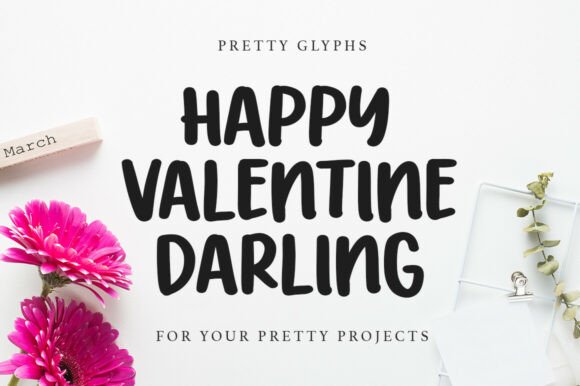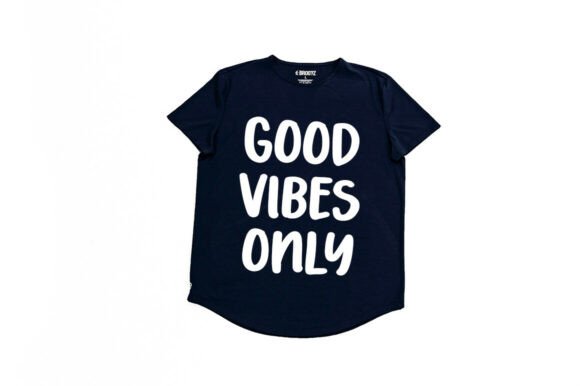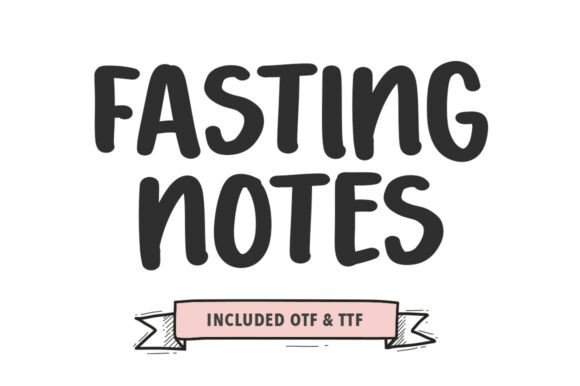
Fasting Notes Font: A Bold and Sturdy Handwriting Font for Authentic Designs
In the world of typography, fonts play a crucial role in conveying the tone and personality of a brand or design. For designers and crafters looking for a unique and authentic look, Fasting Notes Font is an excellent choice. This bold and sturdy handwriting font is designed to capture the essence of neat, marker-drawn lettering, making it perfect for a variety of applications.
Characteristics of Fasting Notes Font
Fasting Notes Font boasts thick, uniform strokes and a very consistent baseline, providing a sense of stability and clarity while maintaining a hand-crafted feel. The letterforms are characterized by tight spacing and slightly irregular, organic curves that suggest a personal, journal-like recording. This distinctive combination of features sets Fasting Notes apart from other fonts and makes it an excellent choice for designers seeking a unique look.
Fasting Notes Font is a versatile option for various design applications. Its bold and sturdy nature makes it perfect for:
• Instructional Headers: Use Fasting Notes Font to create clear and concise headers for instructional materials, such as workout routines, recipes, or DIY tutorials.
• Organic Food Labeling: The font’s natural, hand-crafted feel makes it an excellent choice for labeling organic food products, adding a touch of authenticity to your brand.
• Fitness Branding: Fasting Notes Font is ideal for fitness-related designs, such as gym logos, workout plans, or motivational quotes, conveying a sense of strength and determination.
• Handmade and Artisanal Projects: The font’s unique, hand-crafted look makes it perfect for projects that require a personal touch, such as craft tutorials, handmade product labels, or artisanal branding.
Fasting Notes Font offers several benefits for designers and crafters:
• Unique and Authentic Look: The font’s distinctive features ensure that your designs stand out from the crowd and convey a sense of authenticity.
• Easy to Read: The bold and sturdy nature of Fasting Notes Font makes it easy to read, even at smaller sizes.
• Flexible and Versatile: The font’s versatility allows you to use it across various design applications, from digital to print.
• Time-Saving: With Fasting Notes Font, you can create professional-looking designs quickly and efficiently, saving you time and effort.
Tips for Using Fasting Notes Font
To get the most out of Fasting Notes Font, consider the following tips:
• Pair with Complementary Fonts: Combine Fasting Notes Font with complementary fonts to create visual interest and add depth to your designs.
• Experiment with Colors: Try pairing the font with different colors to create a unique and eye-catching look.
• Use for Headlines and Titles: Fasting Notes Font is perfect for headlines and titles, making it an excellent choice for adding emphasis to your designs.
Fasting Notes Font is a bold and sturdy handwriting font that offers a unique and authentic look for designers and crafters. Its versatility, ease of use, and distinctive features make it an excellent choice for various design applications. Whether you’re creating instructional headers, organic food labeling, fitness branding, or handmade projects, Fasting Notes Font is sure to elevate your designs and add a touch of personality.